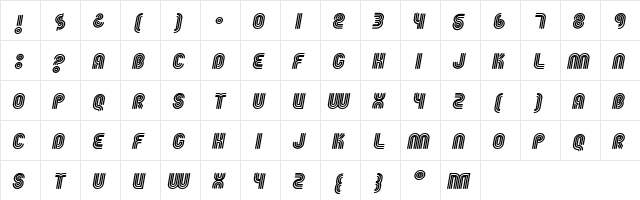
Fgroove Regular
Design Context for Fgroove Typeface
Fgroove is a composed and adaptable typeface that performs quietly and consistently across a wide range of design contexts.